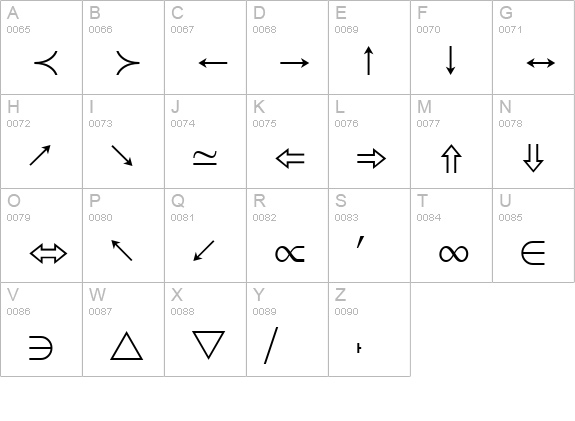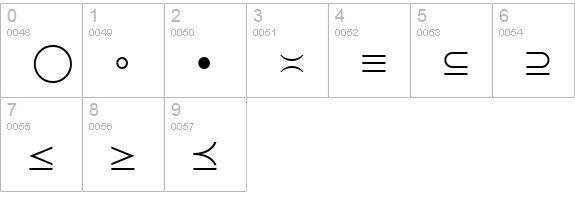
Lucida Bright Math Symbol Font Details
Lucida Bright Math Symbol font is a versatile and elegant typeface designed specifically for mathematical symbols and equations. With its clean lines and precise geometry, this font is ideal for academic and scientific documents where mathematical notation plays a crucial role. The Lucida Bright Math Symbol font effortlessly blends readability with sophistication, making it a popular choice among mathematicians, scientists, and educators alike. Best of all, this font is available for free download at FontsMarket.com, giving you easy access to a valuable tool for your mathematical typesetting needs. Whether you're working on a research paper, a textbook, or a presentation, Lucida Bright Math Symbol font will help you communicate complex mathematical concepts with clarity and style. Download it today and elevate the visual appeal of your mathematical content.